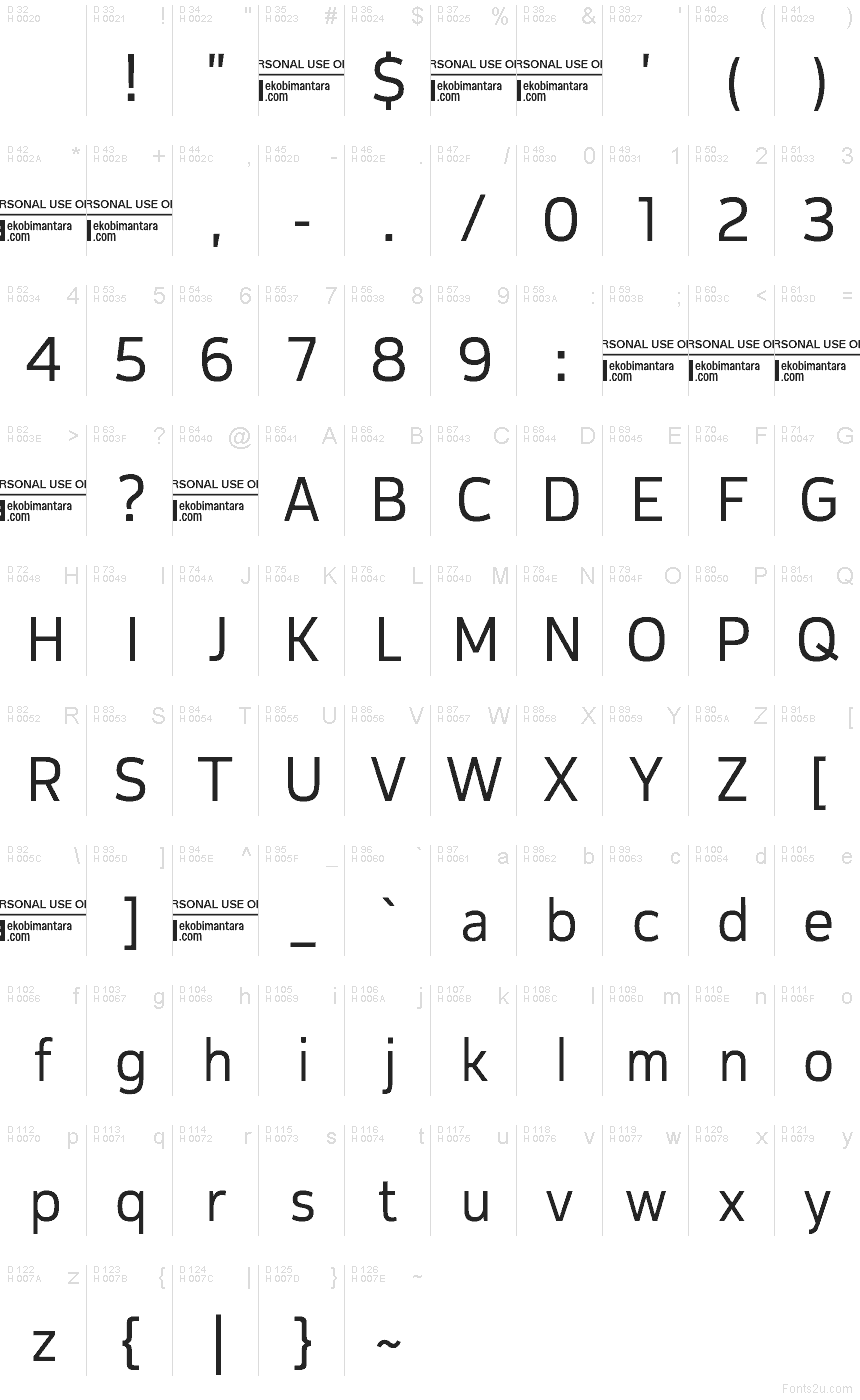
Corp Trial Regular
Corp font by Eko Bimantara is a free regular humanist sans serif font. It solves the classic brief: professional without feeling cold. Rounded terminals, open counters, and a calm rhythm give copy an approachable, inky smoothness, while steady verticals keep it buttoned‑up and legible at every size. The tall x‑height and balanced spacing make text skim-friendly, yet headlines stay crisp and confident.
Using Corp, you can bring smart warmth to brand systems, tech landing pages, SaaS dashboards, pitch decks, editorial features, and wayfinding. This free font shines on dense interfaces as well as clean brochures. Pair it with a lightweight geometric sans for captions, or add a touch of tracking for airier headlines.